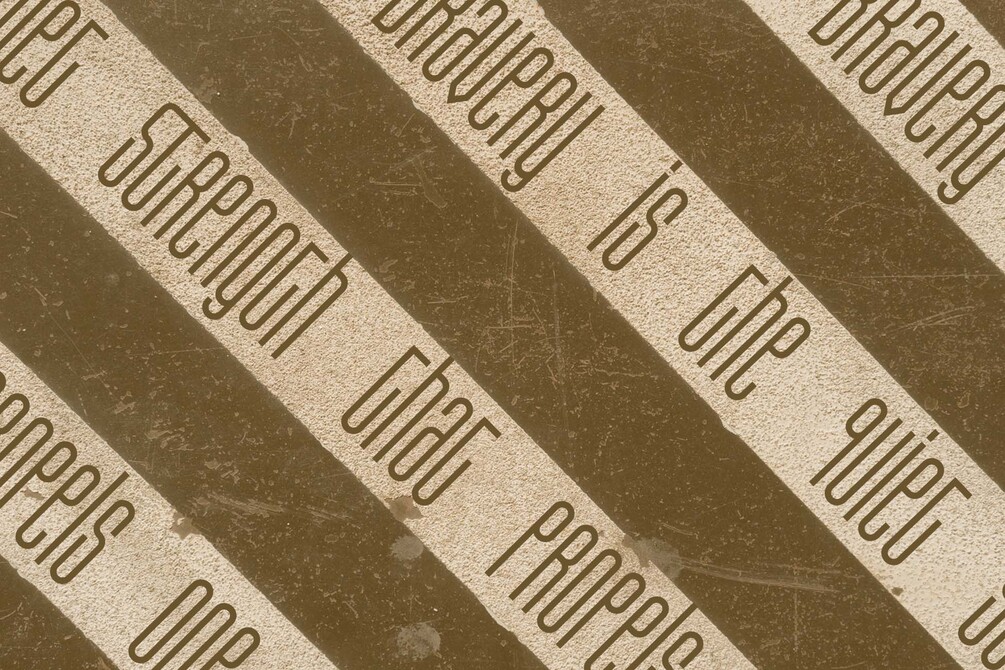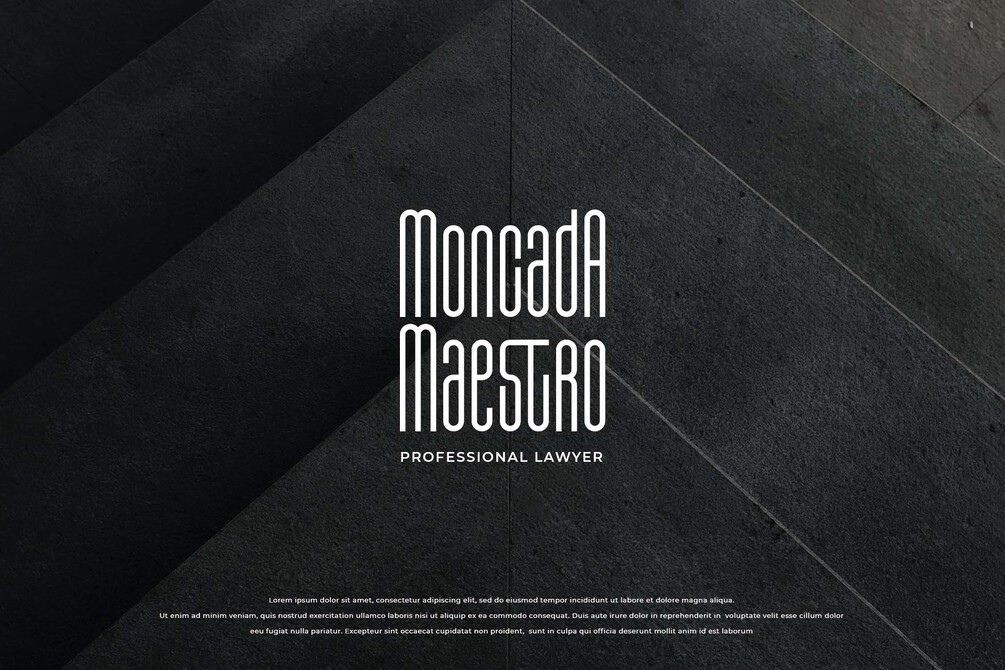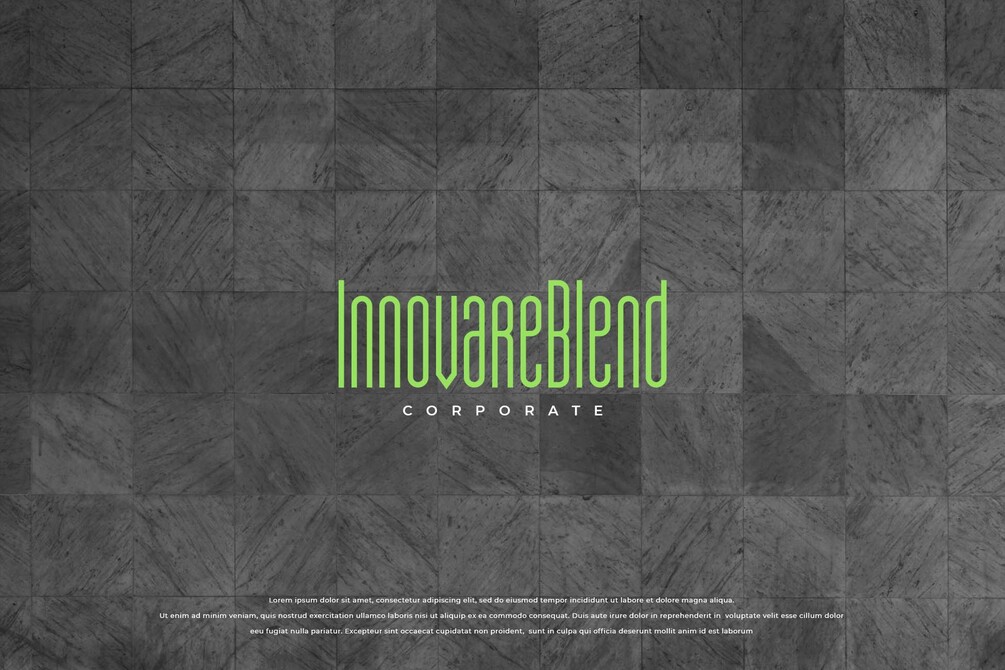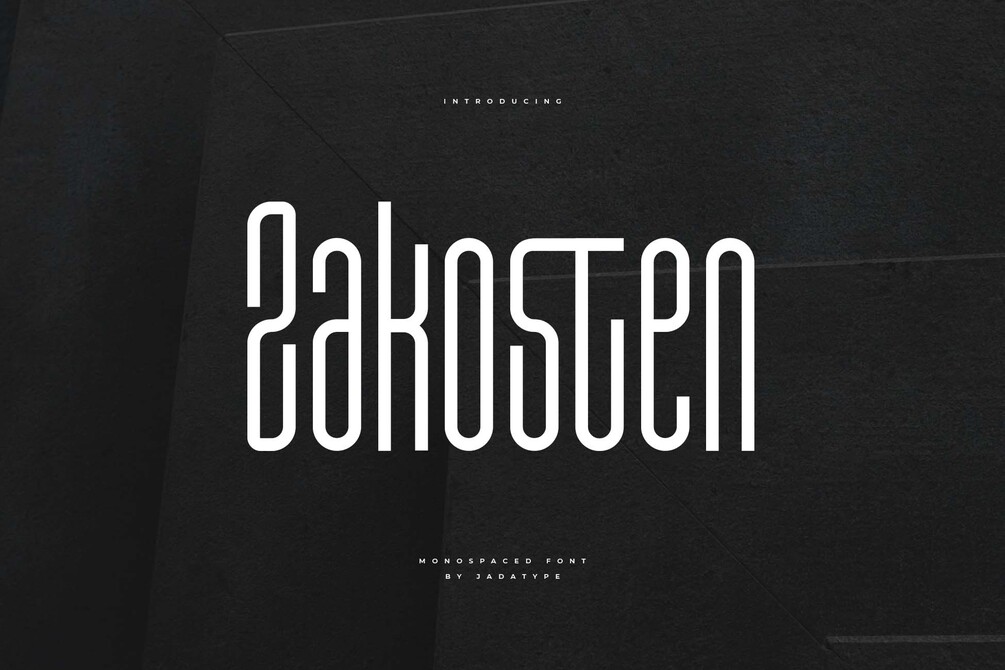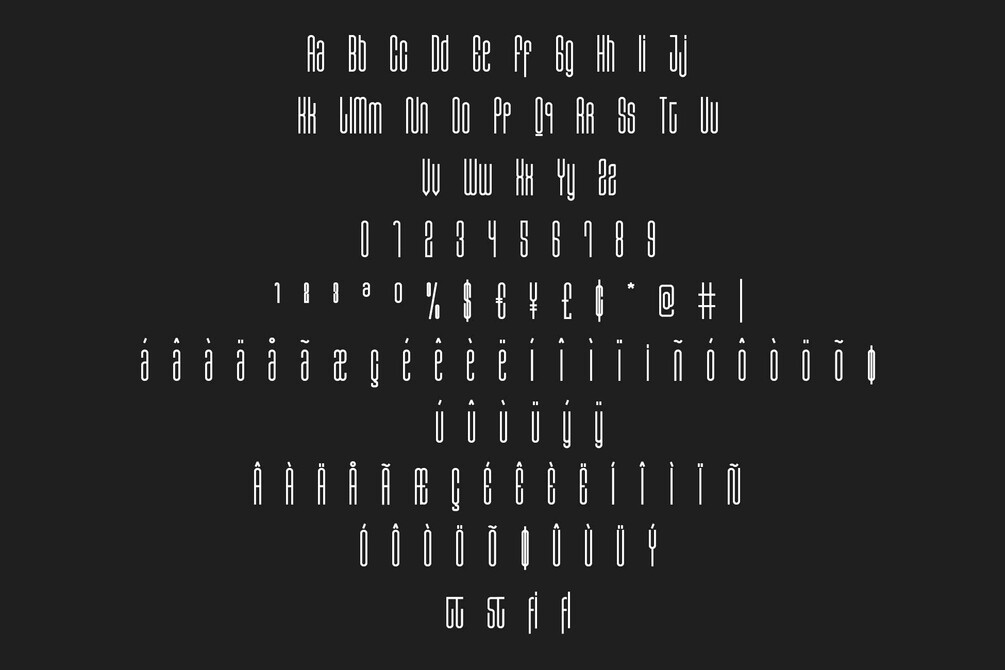
Zakosten Font
Zakosten is a display corporate font that comes with a Monospaced Style. suitable for product, branding, social media, logotype and so on. contains standard English letters, numbers, punctuation, and several accents that support multilingualism.